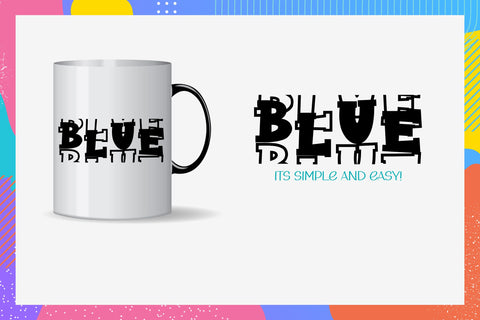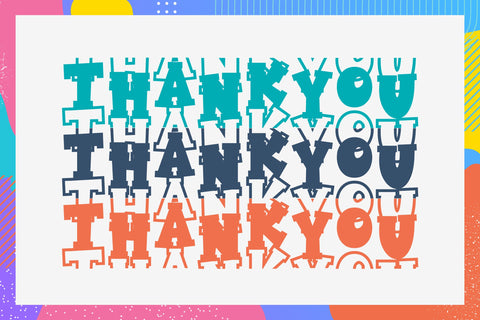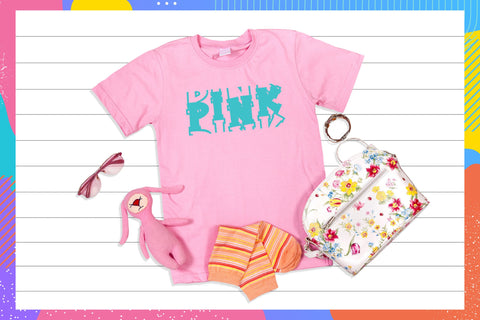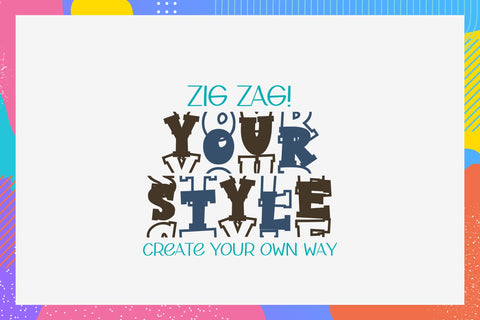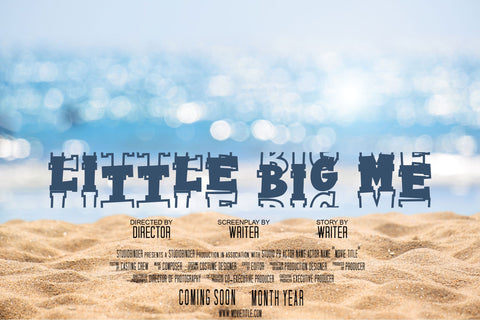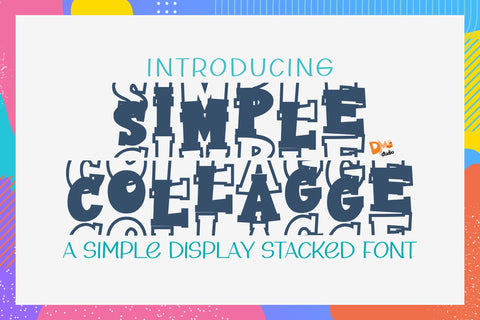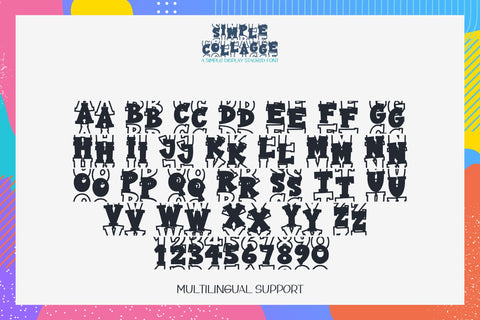
Simple College
Simple College – A Simple Display Stacked Font
Simple College is a bold and modern stacked display font with a clean and structured design. Perfect for college-themed graphics, sports posters, team branding, apparel, and academic designs, this font offers a strong and stylish look. Its stacked letter arrangement creates a unique and eye-catching typographic style, making it a great choice for impactful headlines and creative projects.
• Bold & Clean Stacked Design: A structured and modern display font with stacked letter arrangements.
• Perfect for College & Sports Themes: Ideal for posters, team branding, academic projects, and apparel.
• Versatile & Eye-Catching: Suitable for headlines, banners, and creative typography.
• Complete Character Set: Includes uppercase, lowercase, numbers, punctuation, and multilingual support.